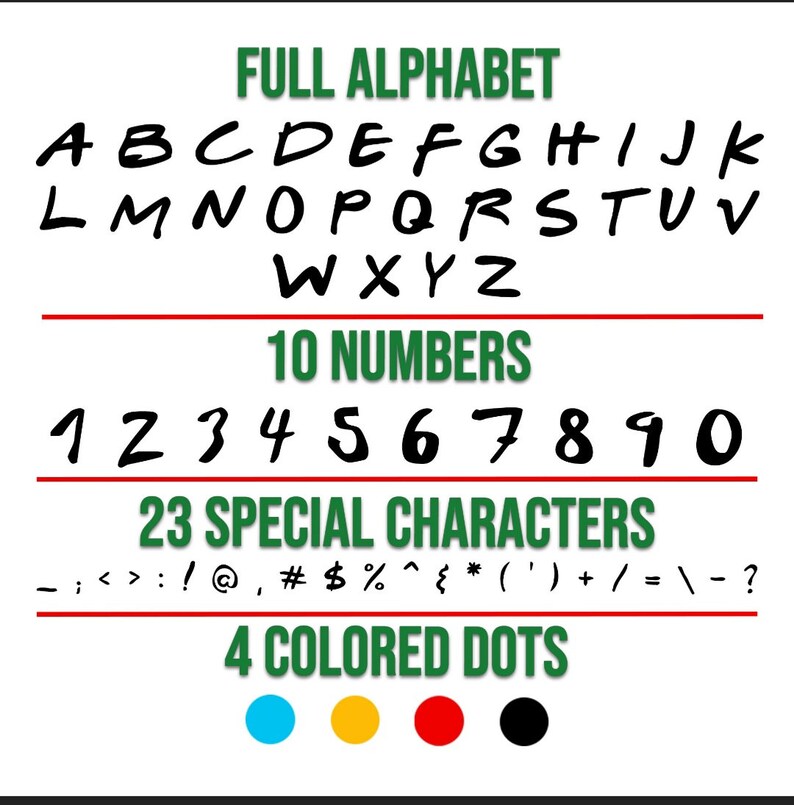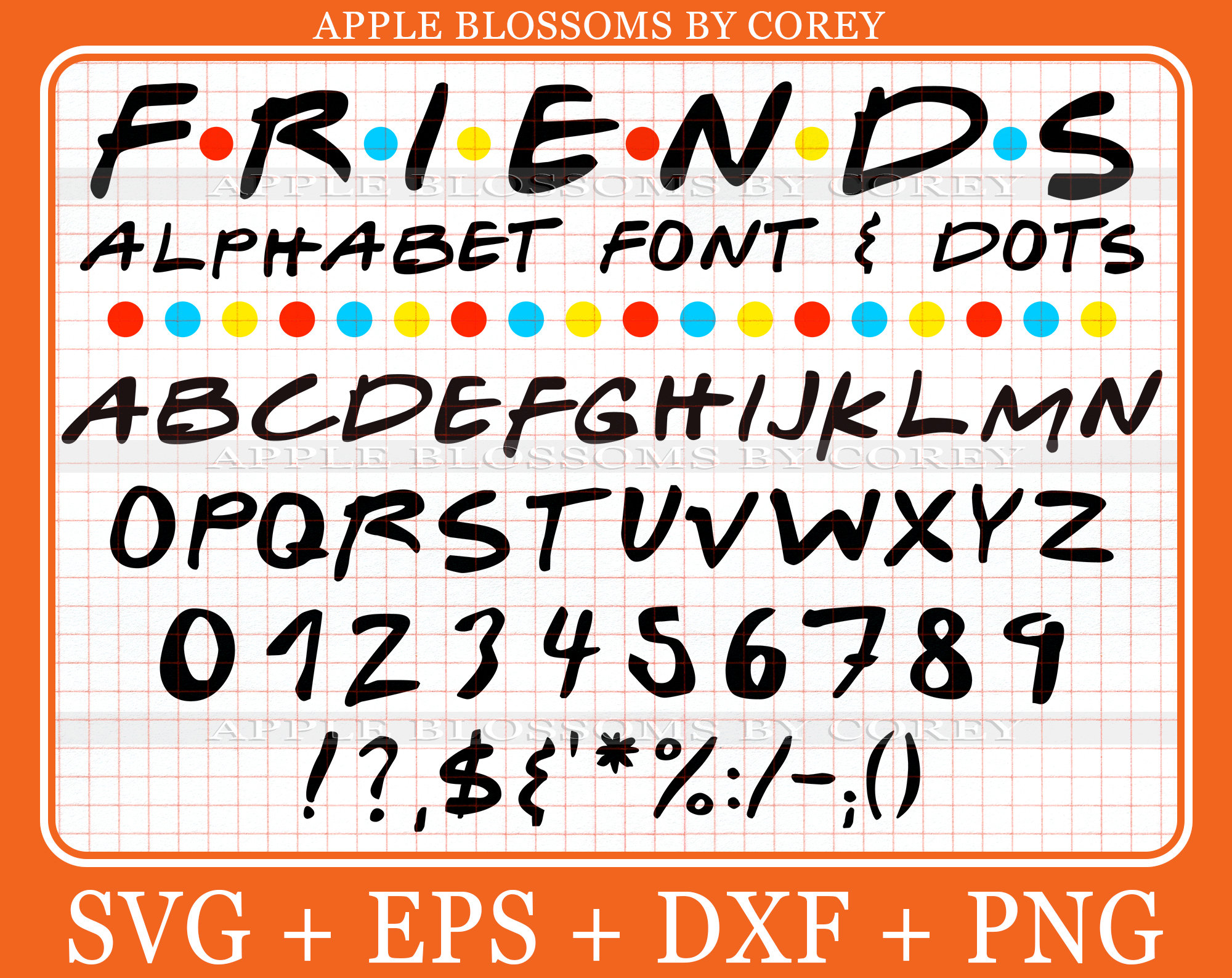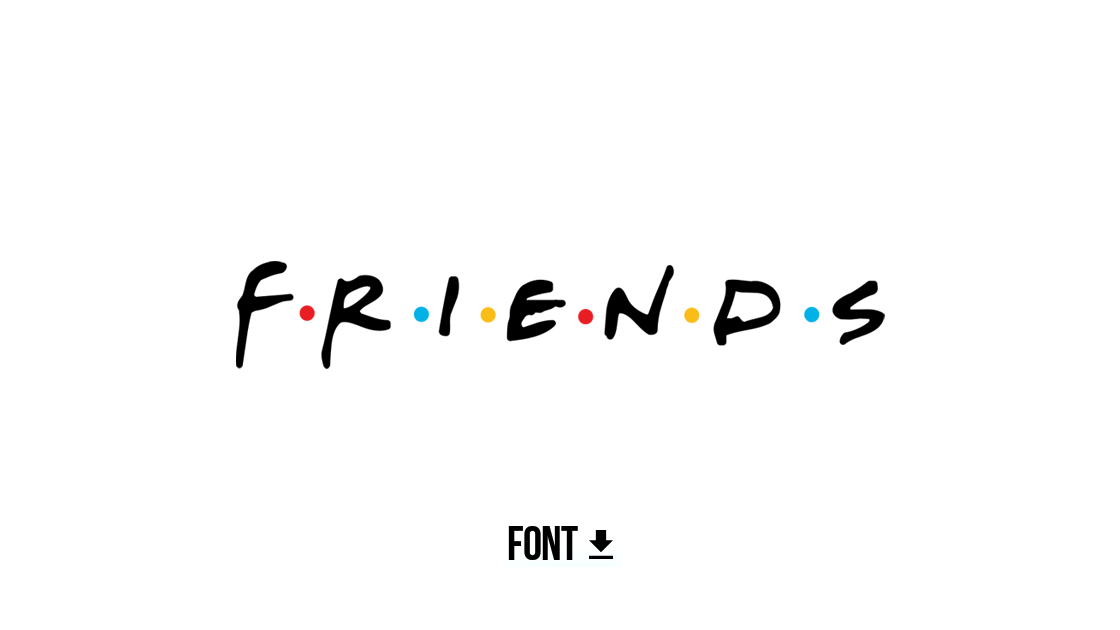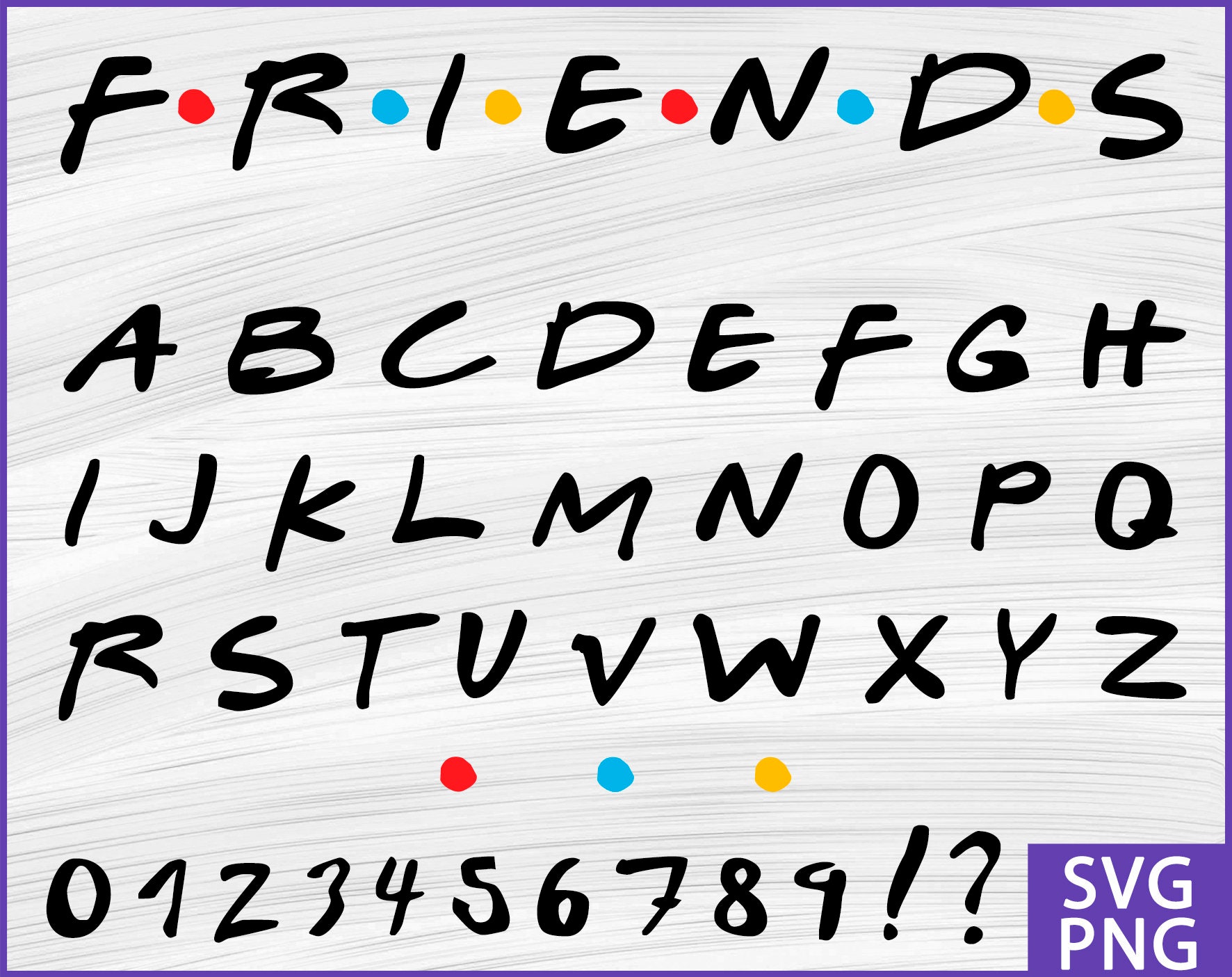
Friends Font Letters
Friends Font Letters - It’s not a perfect replacement, but an excellent alternative. Friends tv show just celebrated its 25th anniversary. Web the best friends font on canva is linotype feltpen. Web the “friends” font is known as “gabriola.”. It is a distinctive and recognizable typeface that is used in the. Use these free friends fonts to recreate the logo in.
Web the best friends font on canva is linotype feltpen. It’s not a perfect replacement, but an excellent alternative. Web the “friends” font is known as “gabriola.”. Friends tv show just celebrated its 25th anniversary. Use these free friends fonts to recreate the logo in. It is a distinctive and recognizable typeface that is used in the.
It’s not a perfect replacement, but an excellent alternative. Friends tv show just celebrated its 25th anniversary. It is a distinctive and recognizable typeface that is used in the. Web the best friends font on canva is linotype feltpen. Use these free friends fonts to recreate the logo in. Web the “friends” font is known as “gabriola.”.
Web the “friends” font is known as “gabriola.”. It is a distinctive and recognizable typeface that is used in the. Use these free friends fonts to recreate the logo in. Friends tv show just celebrated its 25th anniversary. Web the best friends font on canva is linotype feltpen.
Use these free friends fonts to recreate the logo in. It’s not a perfect replacement, but an excellent alternative. Web the “friends” font is known as “gabriola.”. Web the best friends font on canva is linotype feltpen. Friends tv show just celebrated its 25th anniversary.
Web the “friends” font is known as “gabriola.”. It is a distinctive and recognizable typeface that is used in the. Web the best friends font on canva is linotype feltpen. It’s not a perfect replacement, but an excellent alternative. Use these free friends fonts to recreate the logo in.
It’s not a perfect replacement, but an excellent alternative. Web the “friends” font is known as “gabriola.”. It is a distinctive and recognizable typeface that is used in the. Friends tv show just celebrated its 25th anniversary. Web the best friends font on canva is linotype feltpen.
It is a distinctive and recognizable typeface that is used in the. Use these free friends fonts to recreate the logo in. It’s not a perfect replacement, but an excellent alternative. Friends tv show just celebrated its 25th anniversary. Web the best friends font on canva is linotype feltpen.
Web the best friends font on canva is linotype feltpen. Web the “friends” font is known as “gabriola.”. Use these free friends fonts to recreate the logo in. It’s not a perfect replacement, but an excellent alternative. Friends tv show just celebrated its 25th anniversary.
Friends tv show just celebrated its 25th anniversary. It’s not a perfect replacement, but an excellent alternative. Web the best friends font on canva is linotype feltpen. Web the “friends” font is known as “gabriola.”. It is a distinctive and recognizable typeface that is used in the.
It’s not a perfect replacement, but an excellent alternative. Use these free friends fonts to recreate the logo in. Friends tv show just celebrated its 25th anniversary. It is a distinctive and recognizable typeface that is used in the. Web the best friends font on canva is linotype feltpen.
It’s not a perfect replacement, but an excellent alternative. Friends tv show just celebrated its 25th anniversary. It is a distinctive and recognizable typeface that is used in the. Web the “friends” font is known as “gabriola.”. Use these free friends fonts to recreate the logo in.
Use these free friends fonts to recreate the logo in. It’s not a perfect replacement, but an excellent alternative. It is a distinctive and recognizable typeface that is used in the. Web the “friends” font is known as “gabriola.”. Friends tv show just celebrated its 25th anniversary.
It Is A Distinctive And Recognizable Typeface That Is Used In The.
Web the best friends font on canva is linotype feltpen. Use these free friends fonts to recreate the logo in. Web the “friends” font is known as “gabriola.”. It’s not a perfect replacement, but an excellent alternative.